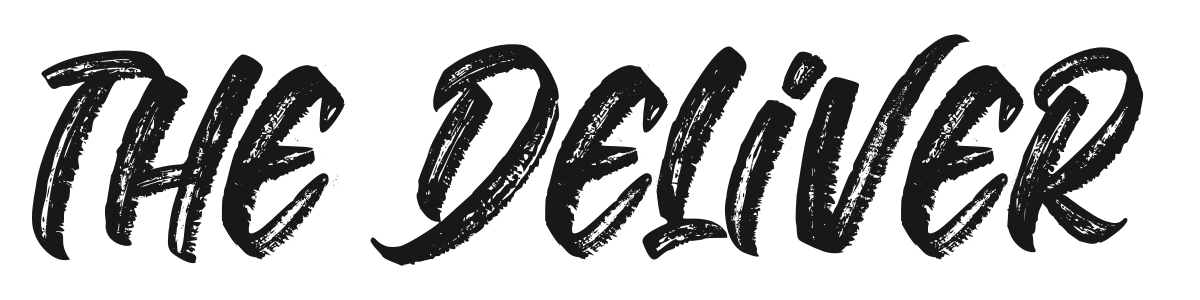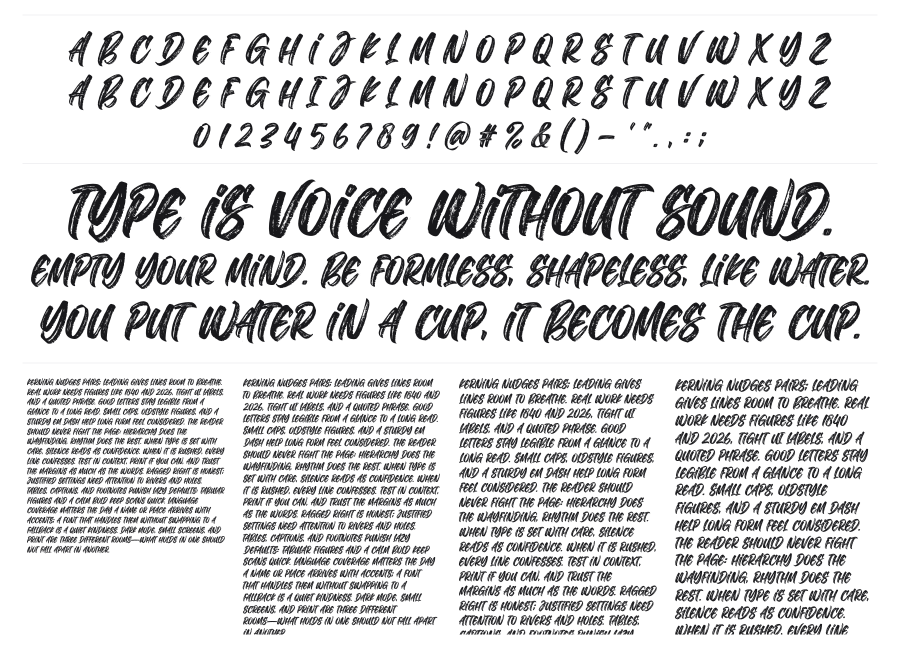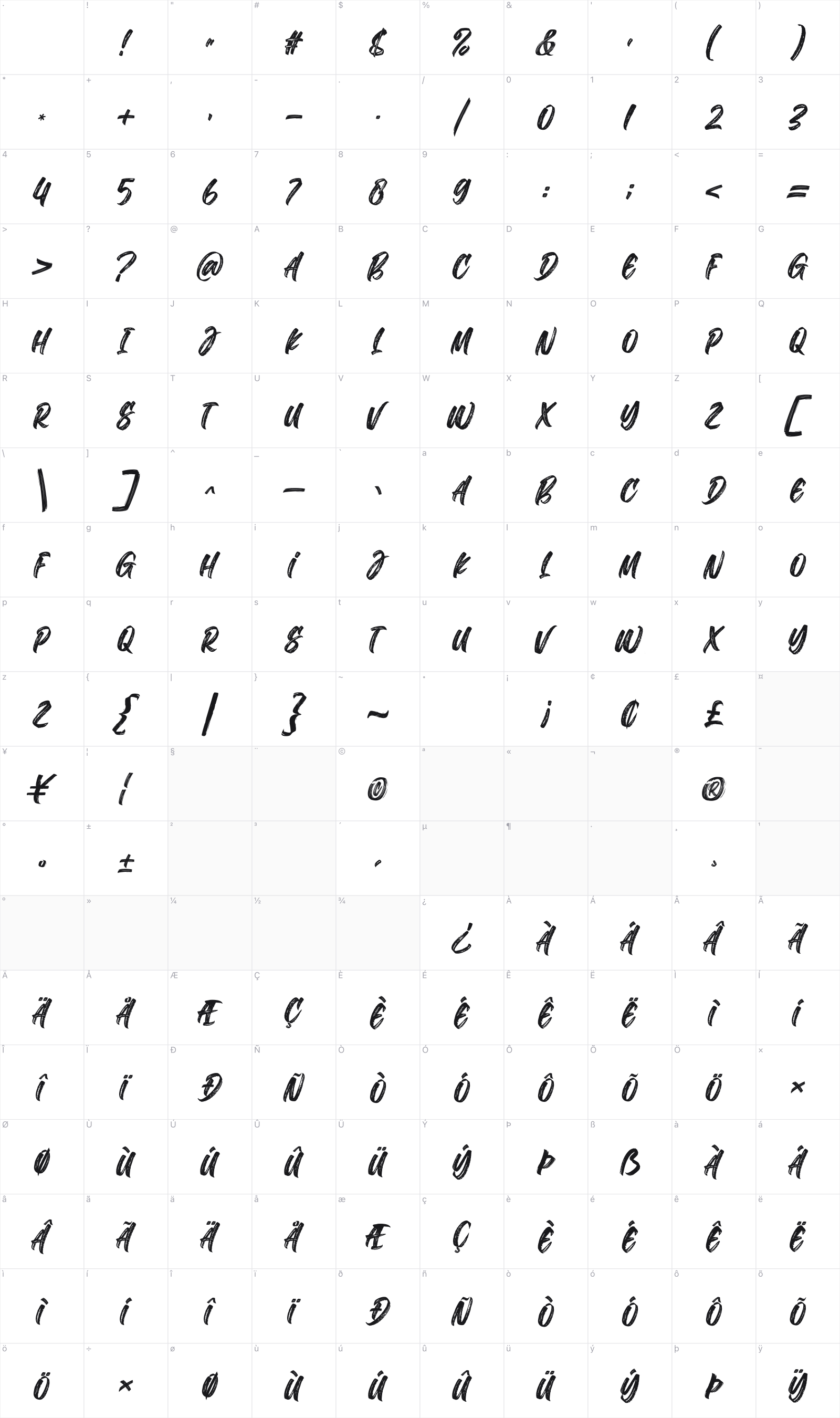
The Deliver
The Deliver is an urban brush script with heavy lean, bristle-textured strokes, and high-energy rhythm. The rough ink texture and dry-brush edges give it an authentic hand-painted quality that separates it from cleaner calligraphic scripts. It hits hard on posters, apparel, and packaging where attitude matters.